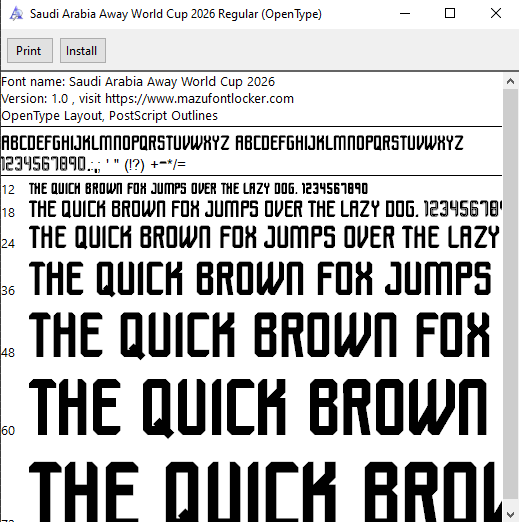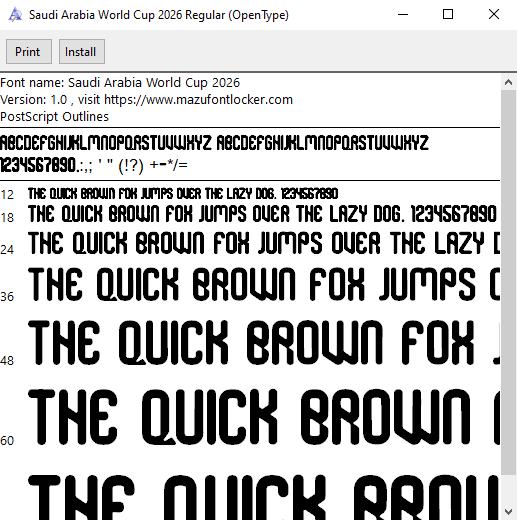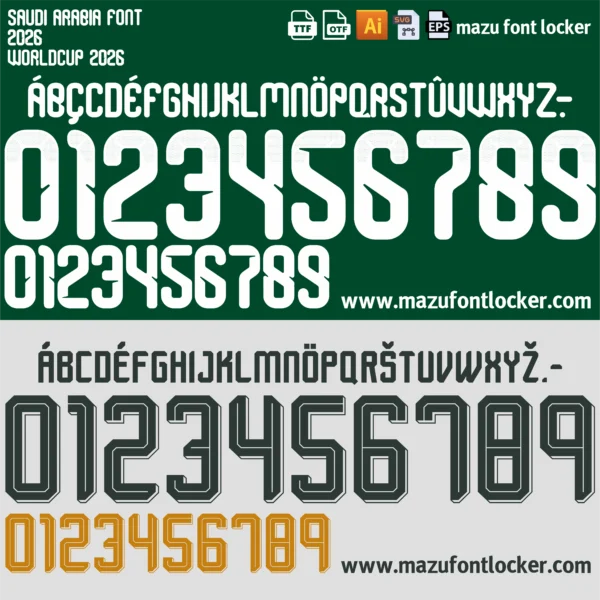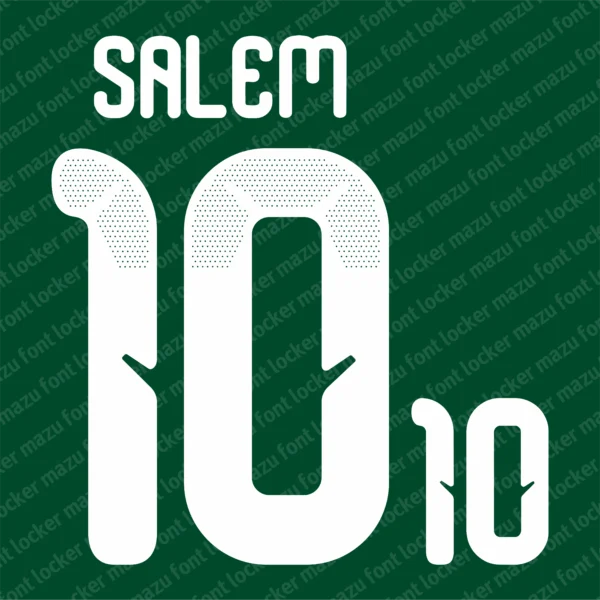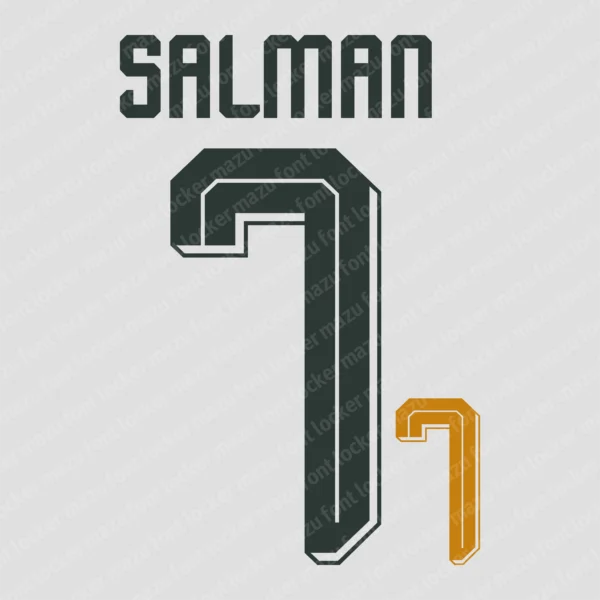
Saudi Arabia World Cup 2026 Font Vector – Epic Green Falcons Majestic Masterpiece
Saudi Arabia World Cup 2026 Font Vector – Authentic Green Falcons Typeface
The Saudi Arabia World Cup 2026 Font Vector is a premium typeface that accurately recreates the official match lettering worn by the Saudi Arabia national team during the 2026 FIFA World Cup campaign. This high-quality vector font kit captures the bold, elegant, and dynamic typography that represents the pride, ambition, and rich football heritage of the Green Falcons.
Designed for professional designers and passionate Saudi Arabia fans, the Saudi Arabia World Cup 2026 Font Vector delivers perfect authenticity for creating realistic jersey mockups, fan merchandise, matchday posters, social media graphics, and Middle Eastern football content. It pairs beautifully with the iconic green home kit featuring the famous Saudi Arabia crest.
Why Choose Saudi Arabia World Cup 2026 Font Vector
This font stands out because of its sharp vector precision and strong national identity. Every letter and number is crafted to match the exact style used on the players’ shirts during the 2026 World Cup campaign. Whether you are making realistic kit templates or exciting Green Falcons content, the Saudi Arabia World Cup 2026 Font Vector gives your designs that authentic Saudi look.
The letterforms in the Saudi Arabia World Cup 2026 Font Vector are tall, bold, and highly readable. The strokes have a strong, clean weight with excellent edge definition that looks powerful on the back of jerseys while maintaining classic Arabian elegance and modern strength.
• Full uppercase A–Z and numbers 0–9 in authentic Saudi Arabia World Cup 2026 style
• Create highly realistic Saudi Arabia World Cup 2026 home and away jersey mockups with accurate lettering
• Produce custom Saudi Arabia merchandise with the 2026 aesthetic
The Saudi Arabia World Cup 2026 Font Vector is an independently designed typeface package. It is carefully crafted to replicate the official shirt lettering style of the 2026 World Cup season. This font kit is perfect for creative projects, fan edits, nostalgic jersey designs, and custom football graphics.